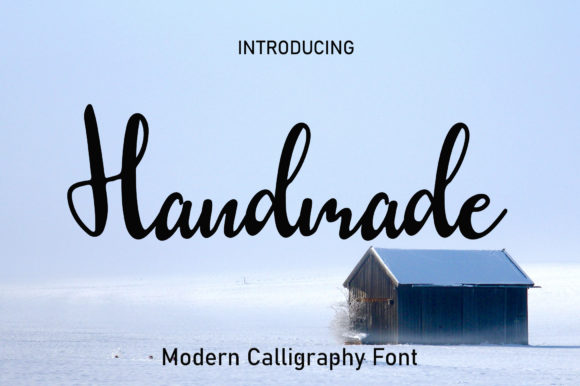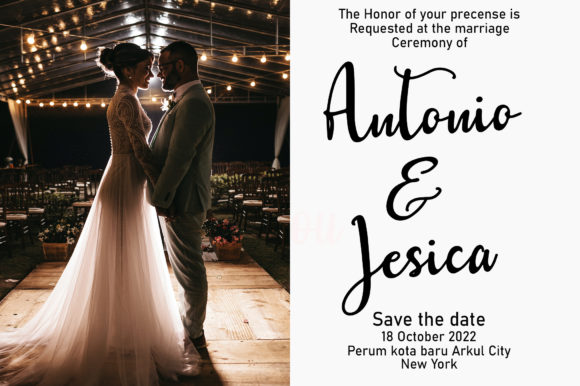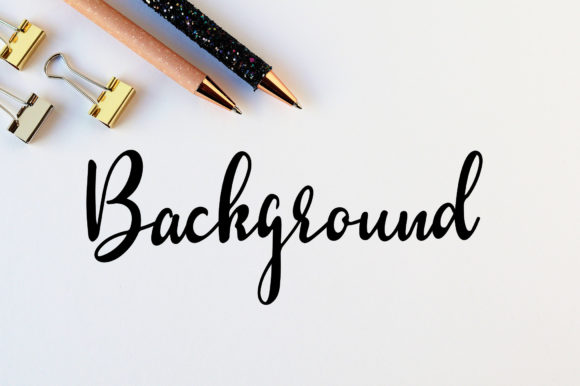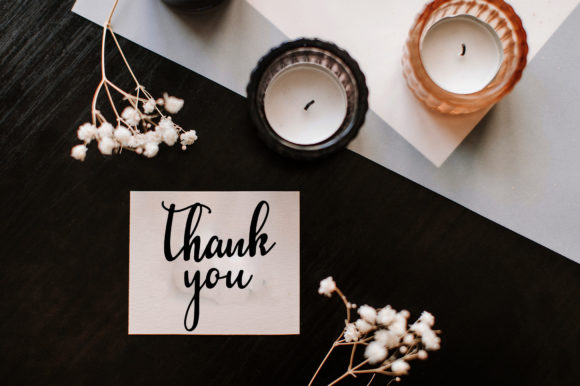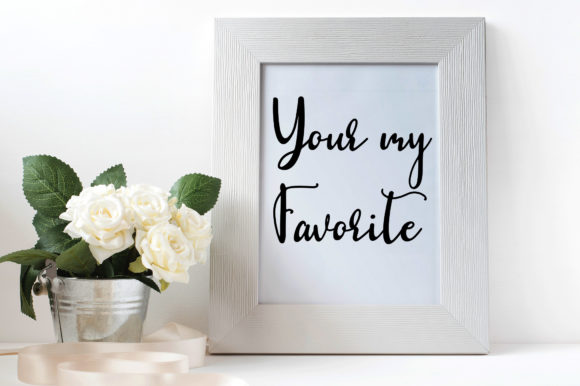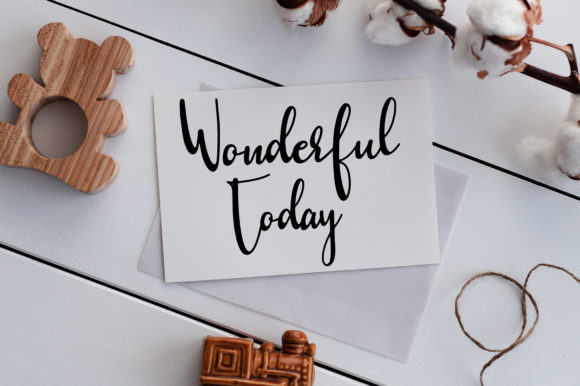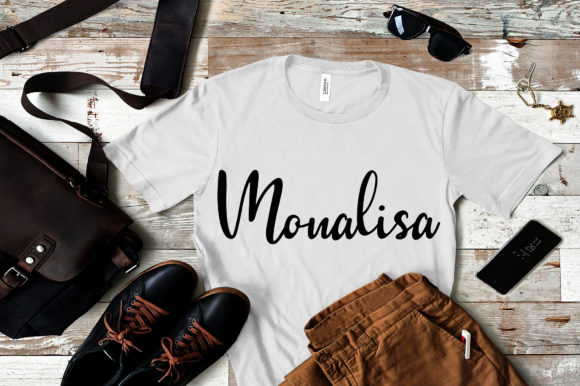
Handmade is a font that exudes style and elegance, making it a perfect choice for a variety of design projects. With its carefully crafted handwritten appearance, Handmade adds a personal and artistic touch to your creations. Whether you’re designing wedding invitations, thank you cards, quotes, greeting cards, logos, or business cards, Handmade can elevate your designs and create a sense of sophistication.
The graceful and flowing characters of Handmade capture the essence of handwritten calligraphy, bringing a sense of authenticity and charm to your designs. Its versatility allows it to seamlessly adapt to various contexts, making it suitable for both formal and informal occasions.
For wedding invitations, Handmade can help set the tone for a romantic and memorable event. Its elegant strokes and delicate curves create a sense of refinement that complements the joyous celebration. Whether used for names, titles, or decorative elements, Handmade adds a touch of class and individuality to each invitation.
Thank you cards become even more heartfelt and special with the addition of Handmade. Its artistic flair communicates sincerity and appreciation, making each card a cherished token of gratitude. The font’s handwritten nature conveys a personal touch that resonates with recipients.
Quotes and greeting cards take on a new level of beauty when presented in Handmade. The font’s elegant and flowing style enhances the sentiment and message, turning ordinary words into a visual masterpiece. Whether it’s a heartfelt quote or a festive greeting, Handmade adds an element of sophistication that captures attention.
Logos and business cards benefit from Handmade’s distinctive appearance. It creates a memorable and distinctive brand identity, setting your business apart with its unique and artistic typography. The handwritten touch communicates a sense of creativity and authenticity that can resonate with customers.
Incorporating Handmade into your designs adds a layer of elegance and refinement that can transform ordinary projects into extraordinary ones. Its stylish and incredibly elegant handwritten aesthetic brings a touch of sophistication to wedding invitations, thank you cards, quotes, greeting cards, logos, business cards, and more. With Handmade, your designs will radiate a sense of artistic flair and timeless charm.